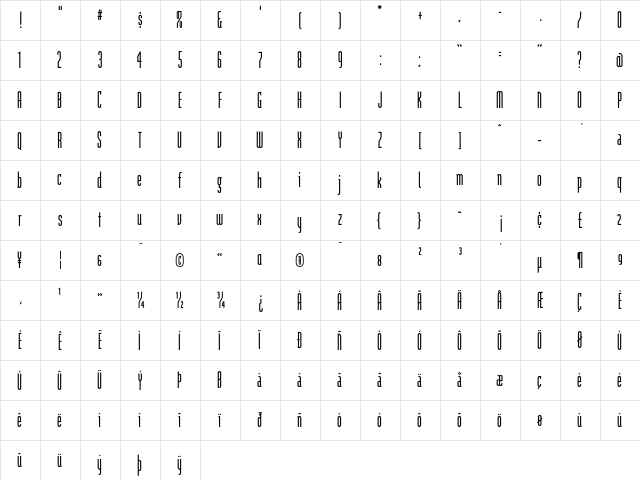
ModulaTall Regular
Design Context for ModulaTall Typeface
ModulaTall is a composed and adaptable typeface that performs quietly and consistently across a wide range of design contexts.